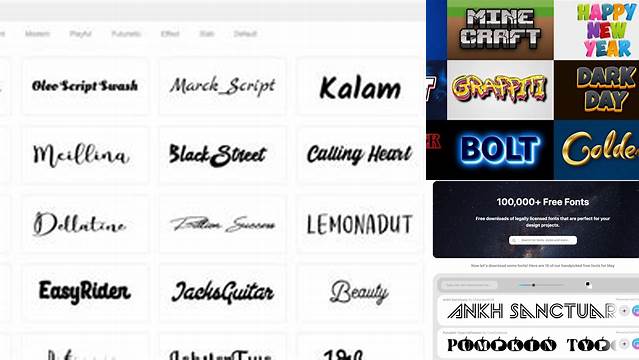
Free Font Generator: Create Stunning Text Online
Hey everyone! Ever wanted to jazz up your text and make it pop? Well, you're in the right place! We're diving deep into the world of font generators online, specifically the free ones, to help you create some seriously eye-catching designs. Whether you're a seasoned designer or just someone who loves playing around with fonts, this guide is for you. We'll cover everything from finding the best free tools to understanding how to use them effectively. So, buckle up and get ready to transform your text into something amazing! Let's get started and explore the awesome world of free font generators.
H2: Unveiling the Best Free Font Generator Tools
Alright, guys, let's get down to the nitty-gritty: finding the best free font generator tools. There are tons out there, but we'll focus on the ones that offer the most bang for your buck (or, you know, the most bang for free!). When we talk about the best font generators, we're looking for tools that are easy to use, offer a wide variety of font styles, and produce high-quality results. Think about it: you want something that's both user-friendly and gives you professional-looking outcomes. This means a clean interface, plenty of customization options, and, of course, a library of awesome fonts to choose from. Some generators even let you preview your text in different sizes and colors, which is super helpful. And let's not forget about compatibility. Make sure the generated fonts work with the software or platforms you plan to use them on, whether it's for a website, social media, or a graphic design project. Look for tools that support common file formats like PNG or JPG for easy download and use. Also, check for any limitations or restrictions, such as watermarks or usage rights. Free doesn't always mean completely unrestricted, so reading the fine print is always a good idea. One standout feature to look for is the ability to create custom text-based logos or headers. This can save you a lot of time and effort, and the results can be seriously impressive. So, as you start your search for the perfect free font generator, keep these factors in mind. It's all about finding a tool that fits your needs and helps you bring your creative vision to life. Trust me, there are some incredible free options out there just waiting to be discovered!
H3: Top-Rated Free Font Generators: A Detailed Comparison
So, you're probably wondering which free font generators are actually worth your time, right? Let's break down some of the top-rated options and see what makes them stand out. First up, we've got the classic and reliable ones. These are often the go-to choices for their ease of use and broad font selections. Expect a user-friendly interface where you can type your text, choose a font, customize the size, color, and spacing, and then download your creation. Some might offer a basic selection of effects, like shadows or outlines. Then there are the generators with a focus on style. These tools might specialize in a specific type of font, such as calligraphy, retro, or modern styles. They often come with pre-set templates or style options, making it easy to achieve a particular look. If you're after a unique aesthetic, this could be the way to go. Some generators even allow you to create animated text or incorporate special effects. These can be great for adding a dynamic touch to your designs, perfect for social media posts or online ads. But remember, with great features often comes a slightly steeper learning curve. Finally, we have the generators that offer a balance of features and ease of use. These are the sweet spots for many users. They combine a solid selection of fonts with customization options and a user-friendly interface. Look for tools that support various file formats and offer previews, making it easy to see how your text will look in different contexts. Consider the quality of the font rendering. You want sharp, clear text, not something pixelated or blurry. Always check reviews and user feedback to get a sense of the tool's reliability and performance. User experience matters; a good font generator should be intuitive and enjoyable to use. By comparing the features, ease of use, and overall quality of different free font generators, you'll be well-equipped to choose the best tool for your needs. Don't be afraid to experiment and try out a few different options before settling on your favorite.
H2: How to Use a Free Font Generator Online: Step-by-Step Guide
Okay, let's get you started with a step-by-step guide on how to use a free font generator online. Don't worry, it's way easier than it sounds! First, you'll need to choose a generator. We've talked about the different types, so select one that appeals to you and aligns with your design goals. Once you've chosen your tool, the first step is usually to enter your text. This could be a single word, a phrase, or even a short sentence. Make sure you type exactly what you want to appear in your final design. Next, you'll dive into the font selection. Most generators will have a drop-down menu or a visual gallery of fonts. Scroll through the options and preview your text in each one until you find a font that you love. Some generators offer a search feature or filters to help you narrow down your choices, which is super handy when you're faced with a huge selection. After choosing your font, it's time to customize. This is where you can adjust the size, color, and spacing of your text. Some generators also offer more advanced options, such as adding effects like shadows, outlines, or 3D effects. Experiment with the different settings to create the perfect look. Once you're happy with your design, it's time to download it. Look for a button or link that allows you to save your text in a suitable file format, such as PNG or JPG. Some generators will also let you download the font file itself, which you can then install on your computer for use in other applications. Before you download, double-check the usage rights. Some free generators may have limitations, such as requiring you to credit the font creator or restricting commercial use. Make sure you understand the terms of use to avoid any issues down the line. And that's it! You've successfully used a free font generator to create some cool text. With a little practice, you'll be a pro in no time! Have fun and get creative!
H3: Mastering the Font Customization Options
Alright, let's dive deeper into the art of font customization. This is where you really get to put your personal touch on things and create something truly unique. The options available will vary depending on the font generator you're using, but there are some common features you'll encounter. Size adjustment is a fundamental. You can often use a slider or enter specific pixel values to make your text larger or smaller. Then comes color selection. Most generators provide a color palette, but some allow you to enter custom hex codes for precise color matching. Don't forget about spacing controls; these let you adjust the letter spacing (kerning) and line spacing (leading), which can significantly affect the readability and aesthetic of your text. Kerning can be adjusted to make words look more balanced, while leading can create a more spacious or condensed feel. Many generators also offer options for text effects. You might find shadows, outlines, and glows, which can add depth and visual interest. Experiment with these to see how they enhance your text. Some generators let you adjust the intensity and position of these effects, giving you even more control. If you're working with a generator that offers text effects, be mindful of overuse. Too many effects can make your text look cluttered and unprofessional. Choose effects that complement your font and design. Explore background options, if available. You might be able to choose a background color or even add a texture to make your text stand out. Some generators support transparency, allowing you to create text that seamlessly blends into any background. One advanced technique is to combine multiple layers of text with different fonts, sizes, and effects. This can create a complex and visually stunning design. Don't be afraid to play around and push the boundaries of what's possible. By mastering these font customization options, you'll be able to create text that truly reflects your vision. Remember, practice makes perfect, so experiment and have fun!
H2: Choosing the Right Font Style for Your Project
Choosing the right font style for your project is crucial, guys. It can make or break your design, so let's break it down. The first thing to consider is the purpose of your project. Are you creating a website, a logo, a social media post, or something else? The answer will heavily influence your font choice. For example, a website targeting a professional audience might benefit from a clean, modern font like Open Sans or Lato. On the other hand, a social media post for a fun brand might use a more playful font, like a handwritten or display font. Next, think about your target audience. What kind of fonts will resonate with them? Do they prefer something serious and sophisticated, or something more relaxed and approachable? Knowing your audience will help you narrow down your font choices. Consider the tone and message of your project. A formal project might call for a serif font, like Times New Roman or Georgia, which convey a sense of tradition and authority. A modern, creative project might benefit from a sans-serif font, like Helvetica or Arial, which offers a clean and contemporary look. Experiment with different font styles to see what best reflects your message. Don't be afraid to mix and match fonts. Combining different fonts can add visual interest and create a unique design. However, be mindful of readability. Ensure your fonts complement each other and don't clash. Stick to a limited number of fonts to maintain consistency. Explore the different font categories. Serif fonts have small strokes at the end of each letter, making them great for long blocks of text. Sans-serif fonts lack these strokes, making them ideal for headings and display text. Script fonts mimic handwriting, adding a personal touch, while display fonts are bold and attention-grabbing, perfect for headlines and logos. Evaluate the legibility of your font. Is it easy to read, even at smaller sizes? Avoid overly ornate or complex fonts that can be difficult to decipher. Keep your target audience in mind here, too. Older audiences may need fonts that are easier to read. Look at other design elements. Consider the colors, images, and overall design of your project. Your font should complement these elements, not compete with them. By carefully considering these factors, you can choose the right font style and create a design that captivates your audience. Remember, font choice is a powerful tool.
H3: The Psychology of Fonts: Matching Fonts to Emotions
Okay, guys, let's dive into the fascinating psychology of fonts! Yes, fonts aren't just about aesthetics; they also evoke emotions and convey messages. Understanding this can significantly enhance your design choices. Different fonts have different personalities. Serif fonts like Times New Roman often project a sense of tradition, authority, and reliability. They can be seen as classic, trustworthy, and intellectual. Think of them as the reliable friend you can always count on. Sans-serif fonts like Arial or Helvetica often convey a modern, clean, and straightforward feel. They can appear more contemporary, efficient, and approachable. Think of them as the cool, minimalist friend. Script fonts mimic handwriting and can evoke feelings of creativity, elegance, and personal touch. They can be romantic, whimsical, and artistic. Think of them as the artsy friend who loves to write and draw. Display fonts are designed for headlines and attention-grabbing text. They come in a wide variety of styles, from bold and playful to dramatic and unique. They can be energetic, fun, or even edgy. Think of them as the loud and proud friend. Consider the emotional response you want to create. Do you want to convey a sense of trust and stability, or excitement and innovation? Choose a font that aligns with the emotions you want to elicit from your audience. Context matters. The font choice that works for a children's book will differ vastly from the font choice for a law firm. Always consider your target audience and the project's purpose. The font you choose influences perceived brand values. A carefully selected font can reinforce a brand's identity and values. Consistency across different marketing materials is important here. Font combinations can create specific effects. Pairing a serif font with a sans-serif font can add visual interest while maintaining readability. Be careful to choose combinations that complement each other, not clash. Font size, weight, and spacing also influence how the text is perceived. Larger text can grab attention, while bold text can emphasize a point. Adjust spacing to enhance readability and aesthetics. Consider cultural associations of fonts. Some fonts may be associated with specific cultures or periods. Use this to your advantage when you want to evoke a particular feel. Remember, font psychology is not an exact science, but it's a powerful concept. By understanding the emotions fonts evoke, you can create designs that are both visually appealing and emotionally resonant.
H2: Font Generator Variations: Exploring Different Styles
Hey, let's explore the exciting world of font generator variations. It's not just about typing text; it's about expressing yourself with different styles. We're talking about the unique flavors that these tools offer. Different generators often specialize in creating unique font styles. Some might offer handwritten fonts. These mimic real handwriting, adding a personal, authentic feel. They're perfect for invitations, quotes, and social media posts. Others might create retro fonts. Think vintage posters, old movie titles, and classic designs. These fonts bring a nostalgic vibe to your projects. If you're into futuristic designs, look for generators that offer modern fonts. These can include sleek sans-serifs, geometric shapes, and cutting-edge effects. Some generators let you explore calligraphy fonts. These elegant, flowing fonts can add a touch of sophistication and artistry. Ideal for wedding invitations, formal documents, and artistic projects. And for a touch of fun, you'll find generators that create script fonts. These simulate cursive writing, giving your text a personal and playful feel. They're perfect for logos, branding, and social media. Keep an eye out for display fonts. Designed for headlines and attention-grabbing text, these are bold and eye-catching. Great for marketing materials and advertisements. Font generators that allow you to create custom styles are gold. They might offer options to adjust the thickness, spacing, and other elements to tweak existing fonts. If you're looking for a specific aesthetic, search for generators that offer themed font packs. They might include sets for Halloween, Christmas, or other occasions. Some generators will let you add special effects to your text. This includes adding shadows, outlines, or other visual enhancements. When exploring font generator variations, consider the quality and legibility of each style. You want something that looks great and is easy to read. Remember to choose fonts that complement your design and target audience. By experimenting with different styles, you can create unique and visually appealing designs.
H3: Creating Handwritten Fonts and Calligraphy Effects
Let's get your creative juices flowing with handwritten fonts and calligraphy effects using free font generators. These styles can add a personal touch to your designs, perfect for invitations, quotes, and branding. When creating handwritten fonts, the key is to find a generator that lets you mimic the natural flow of handwriting. Look for generators with options for customization. You can adjust the thickness of the strokes, the angle, and even add variations to make the text look more authentic. Some generators let you upload a scan of your own handwriting, converting it into a font. This gives your design an incredibly personal touch. When it comes to calligraphy effects, search for generators that offer elegant, flowing fonts. Look for generators that let you adjust the thickness, angle, and slant of the strokes. They can also offer options to add swirls and other decorative elements. You can also simulate calligraphy by adjusting the spacing and kerning of a regular font, creating the illusion of handwritten elegance. The key is to achieve a balance between elegance and readability. Make sure that the text is clear and easy to understand. Remember to consider the purpose of your design. A handwritten font might be suitable for a greeting card or a personal note. A calligraphy effect might be suitable for a formal invitation or a logo. Don't be afraid to experiment with different font combinations. You can pair a handwritten font with a clean sans-serif font for a balanced look. The right combination can create a visually appealing and cohesive design. Prioritize readability. Make sure that your text is easy to read, even at smaller sizes. Avoid overly ornate or complex fonts that can be difficult to decipher. When downloading your font, consider the file format. PNG files are great for keeping the transparency and the background of the font, while other fonts are good to use when you are going to install them for other programs such as Microsoft Word. Whether you are using a handwritten font or a calligraphy effect, focus on the aesthetics. Pay attention to the details, such as the spacing, kerning, and overall balance of your design. Have fun. Experiment with different fonts, effects, and combinations to find the perfect look for your project. Remember, the goal is to create text that looks beautiful and enhances the overall design.
H3: AI and Machine Learning in Font Generation: The Next Level
Let's discuss how AI and machine learning are revolutionizing font generation. This is where the real magic starts to happen. Expect AI to create unique and personalized fonts. AI algorithms can analyze data on different font styles. AI can also create a unique font based on the characteristics. We are likely to see tools that generate fonts based on user input. AI may analyze user preferences. The AI can adapt to the user's desired style. The AI can suggest font pairings. This will help you create effective designs. AI can automate the process of font creation. AI may analyze the user's design. Expect to see AI tools that analyze the legibility. The AI tools can also optimize the aesthetics. Expect AI-powered tools for font design. AI can adjust the spacing and kerning. The AI can also customize the font weights. AI will also help with font integration. Expect AI to integrate font designs into projects. AI tools may give advice on font choice. The AI tools can also improve the workflow. AI can revolutionize font generation by creating personalized fonts. AI can give more creative control. These tools will also improve the user experience. AI will become an important part of font design.